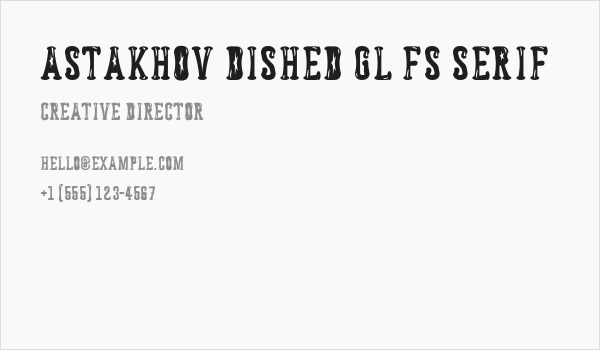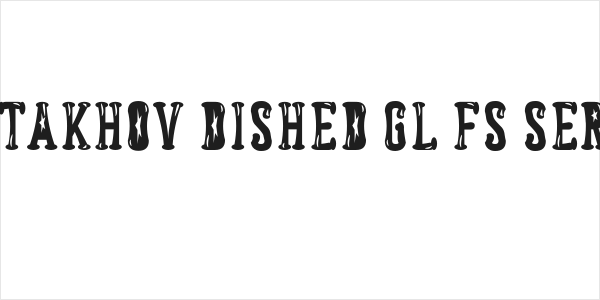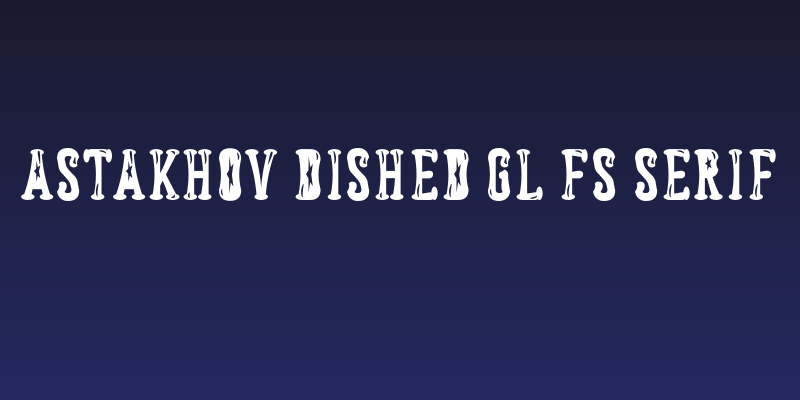
Astakhov Dished Gl FS Serif Font
Astakhov Dished Gl FS Serif Description
This font features a bold and decorative style with a unique, playful twist. Each character is adorned with star-like cutouts, adding a whimsical and eye-catching element. The letters are robust and have a strong presence, making them ideal for attention-grabbing designs. The serifs are pronounced, enhancing the font's decorative nature. The numbers and special characters maintain the same playful aesthetic, ensuring consistency across all elements. This font is perfect for projects that require a bold statement and a touch of creativity.